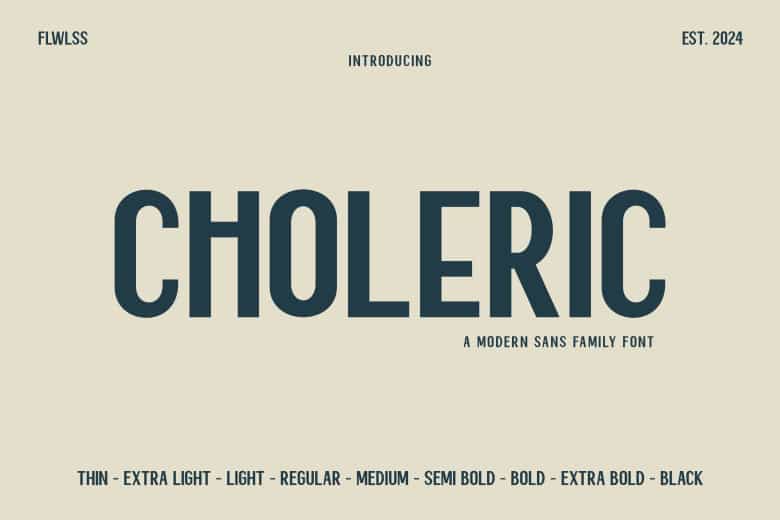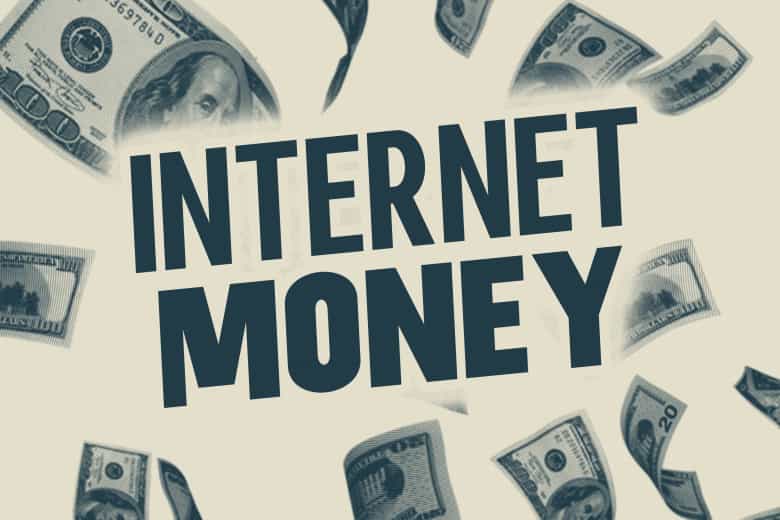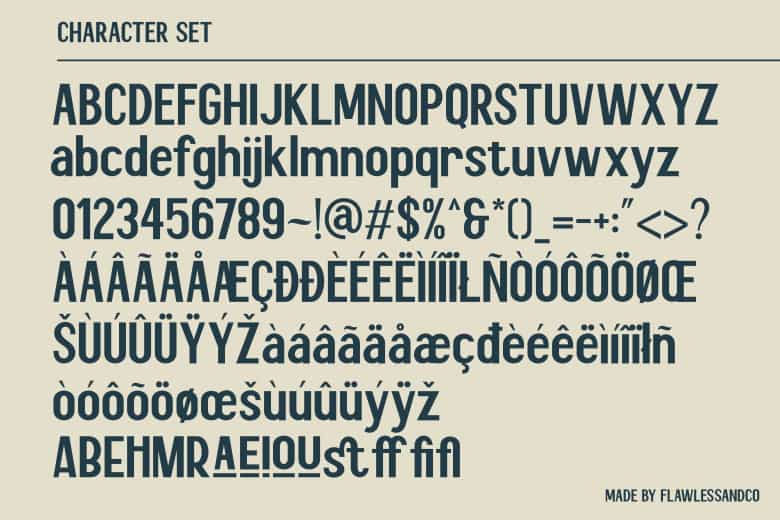
Choleric is a modern and versatile sans serif font family consisting of different weights from black to thin styles, including extra-light, thin regular, light semi-bold, bold extra bold and black weights. Each style in Choleric boasts its own distinct character with well-balanced characters to ensure clarity and accuracy for every word it covers.